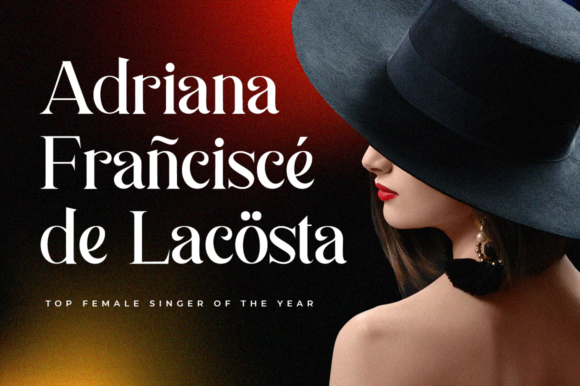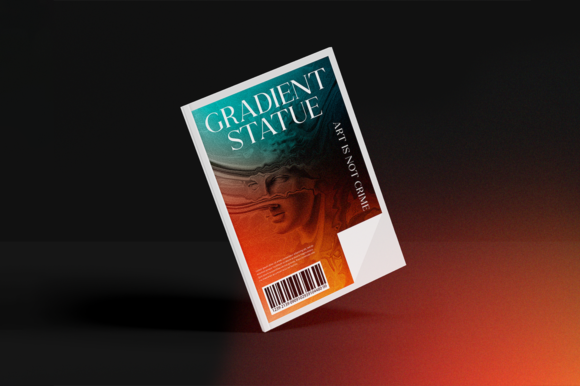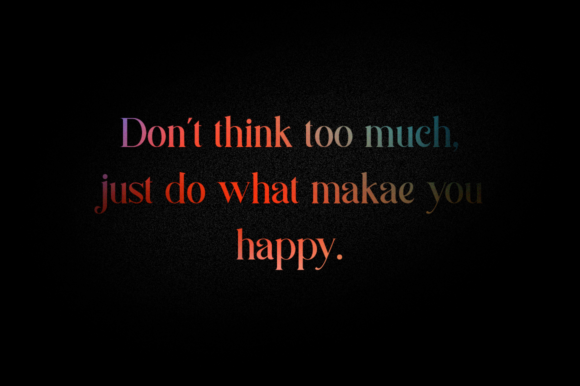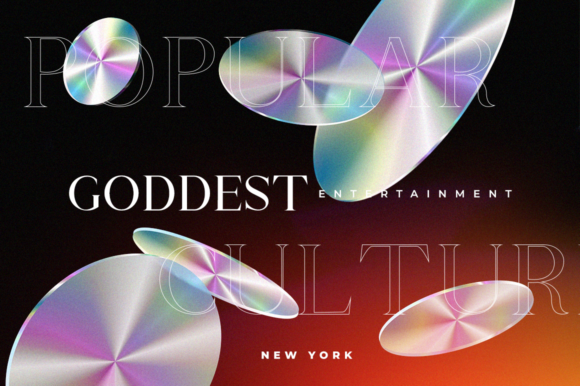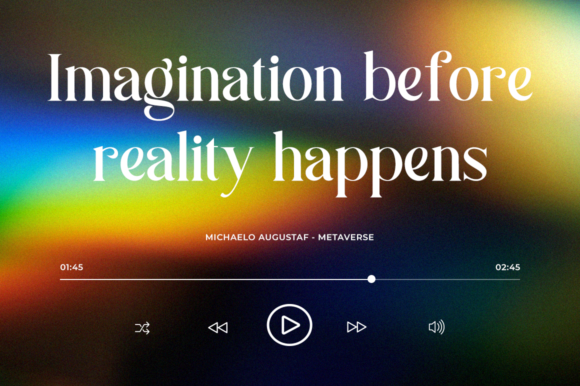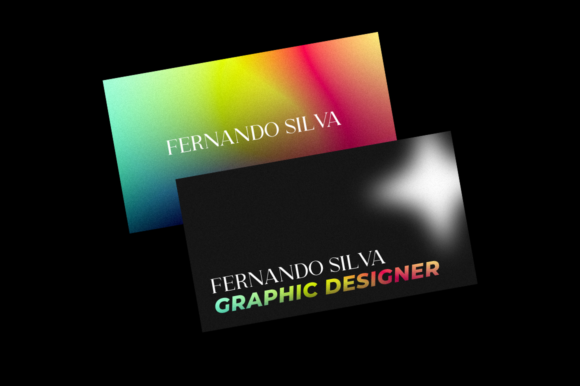
Introduction to Racostane Font
Racostane is an elegant, thin lettered and distinct serif font.
Suitable to a wide variety of designs due to its neat and clean style, this font has the potential to become your favorite go-to font, no matter the occasion .